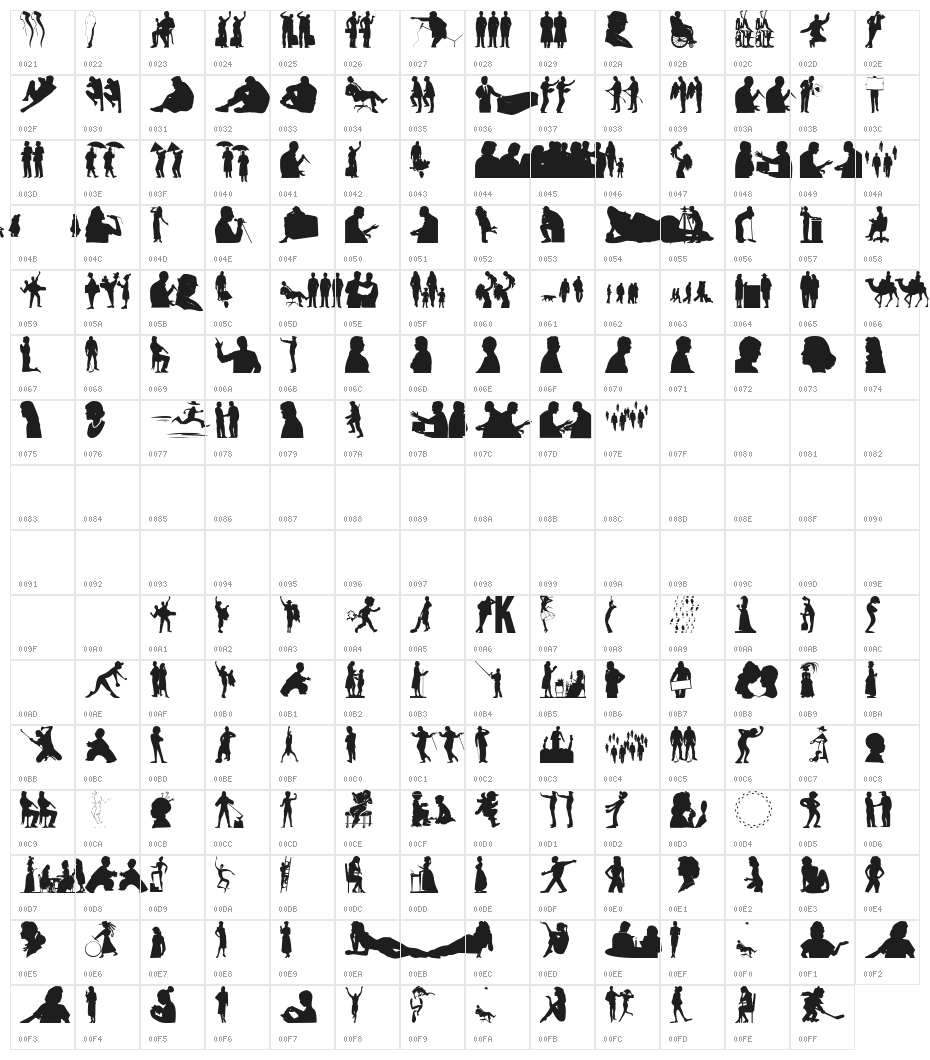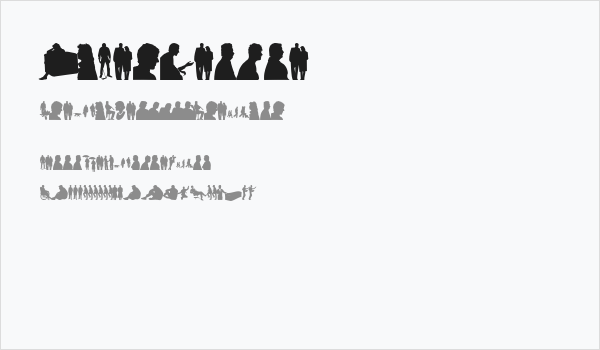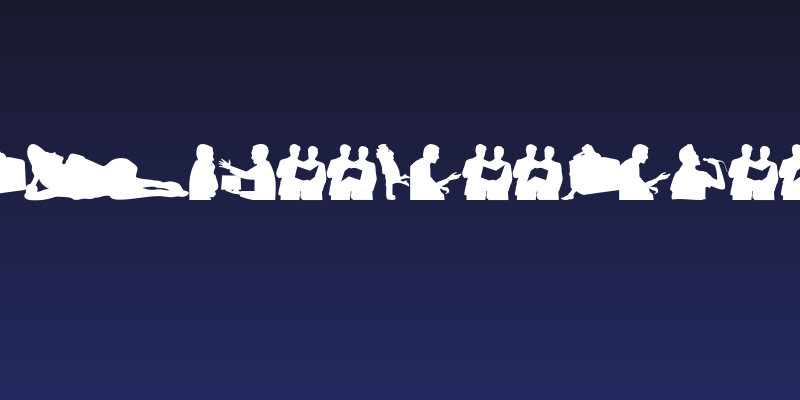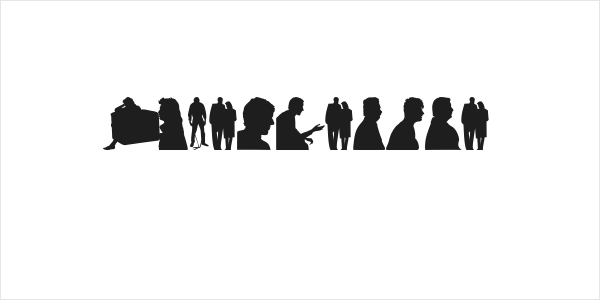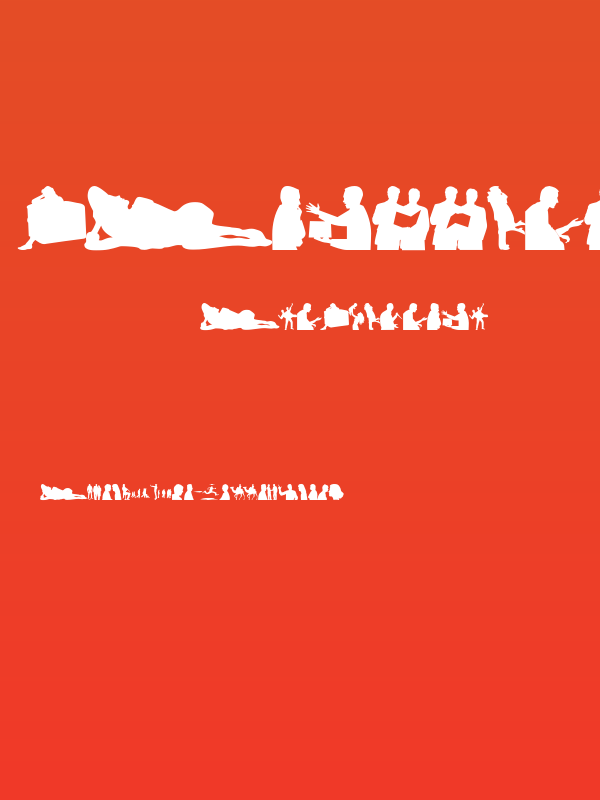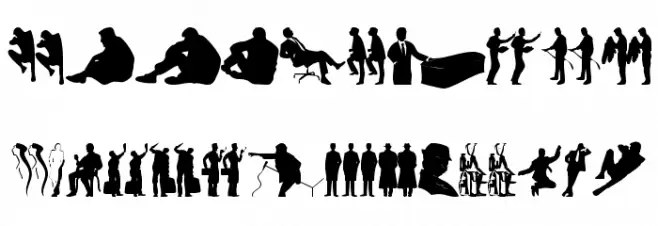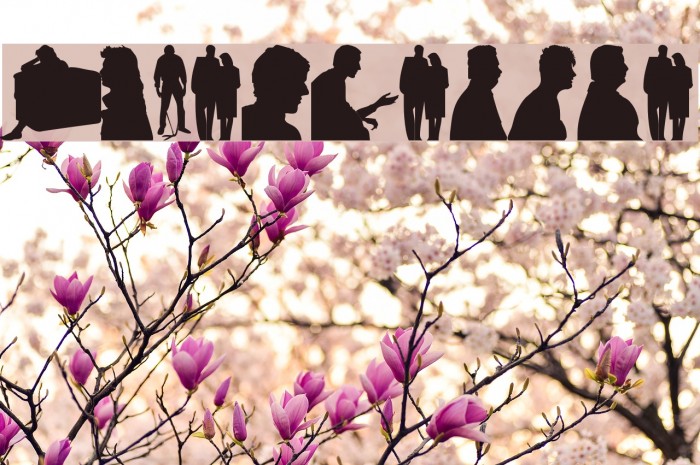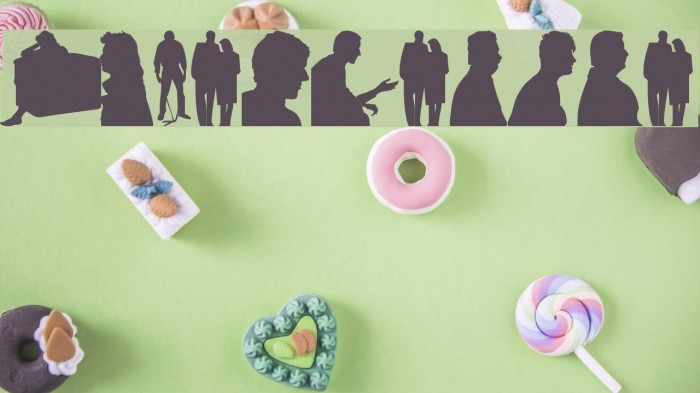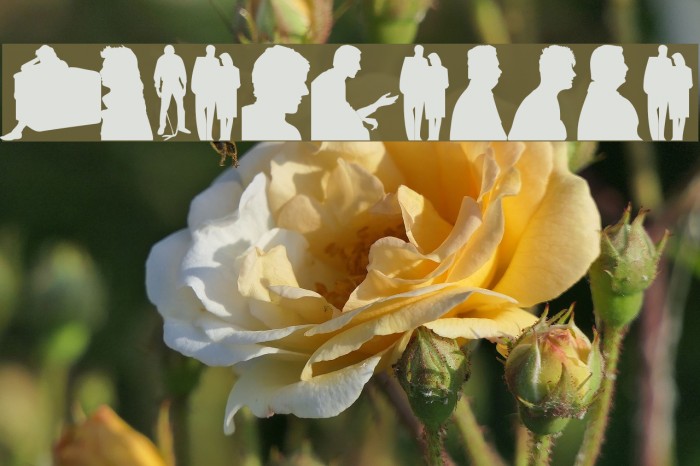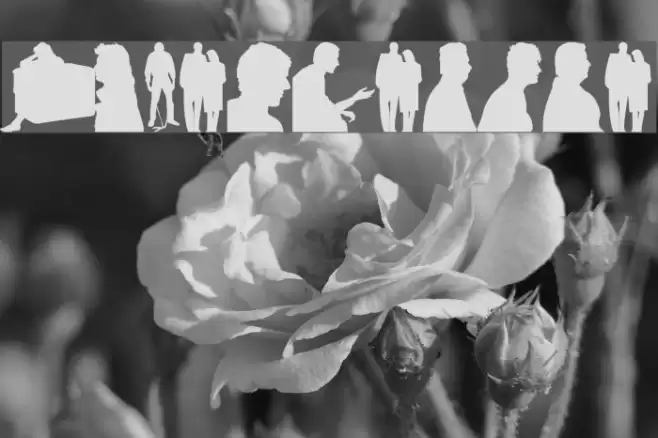
OtherPeople Font
OtherPeople Description
A decorative display font composed of detailed human silhouettes in various poses and groupings, forming each character with unique, recognizable scenes of people interacting, standing, sitting, or performing activities.
| Overall Style | Decorative, Artistic, Playful |
| Use Case | Headlines, Logos, Posters, Artistic projects |
| Proposed Projects | Posters, album covers, event flyers, creative branding, art projects, editorial illustrations. |